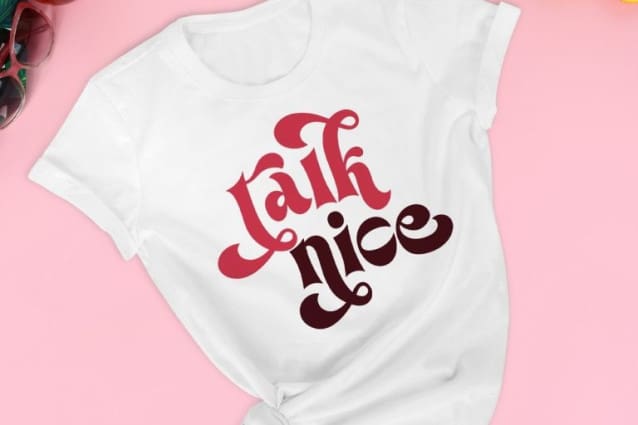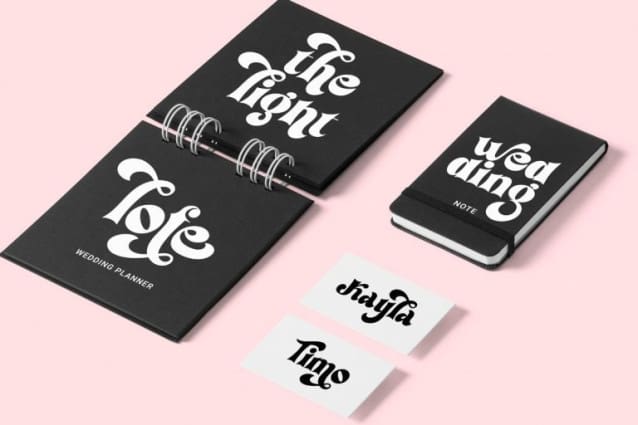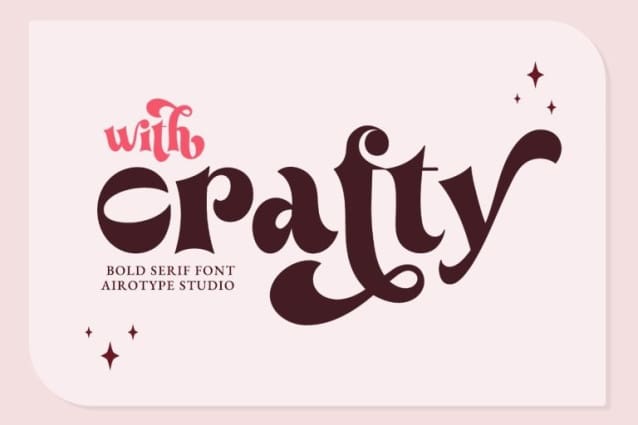
With Crafty Font
With Crafty Font is fresh and modern serif font. This is bold with modern and vintage touch in the same time. Withcrafty has extra glyphs to give more options for crafters in designing.
With Crafty is perfect font for any projects, for modern design, branding, logo, crafting, sticker, sublimation, wedding invitation, and many more.